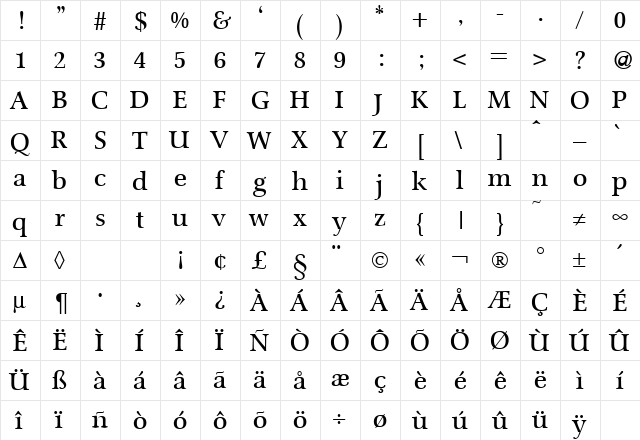
Scenic Regular
Design Context for Scenic Typeface
Scenic offers clean, dependable letterforms without strong stylistic allegiance, making it a practical choice for designers who need flexibility.